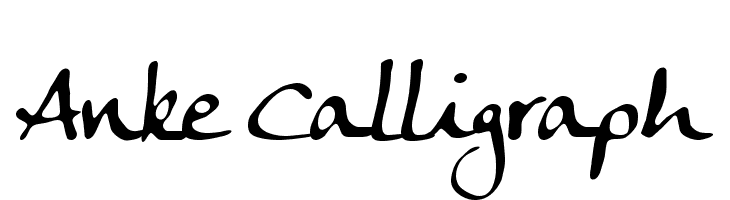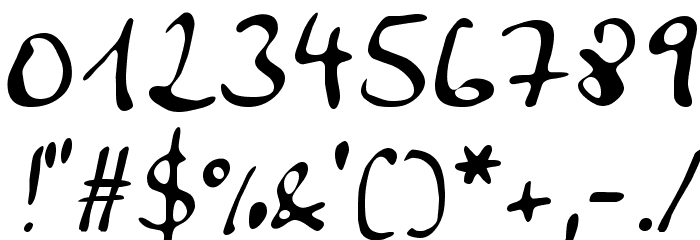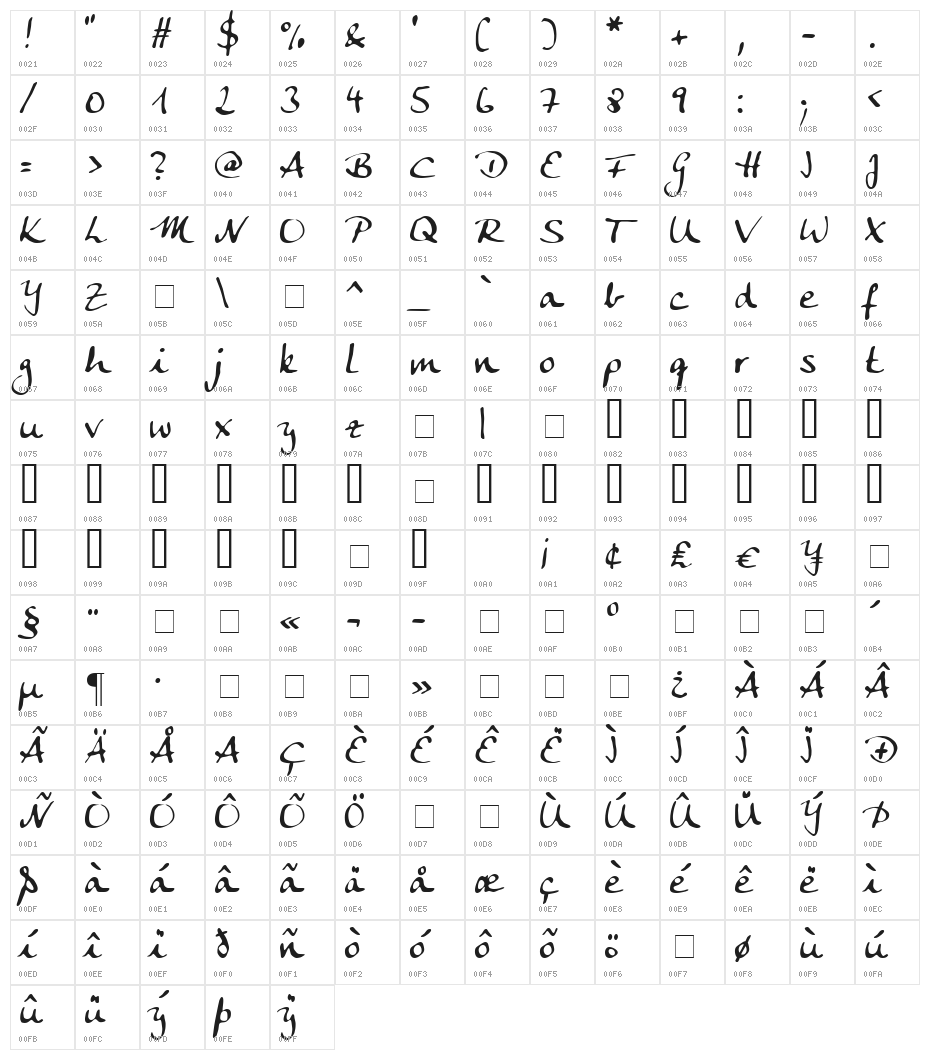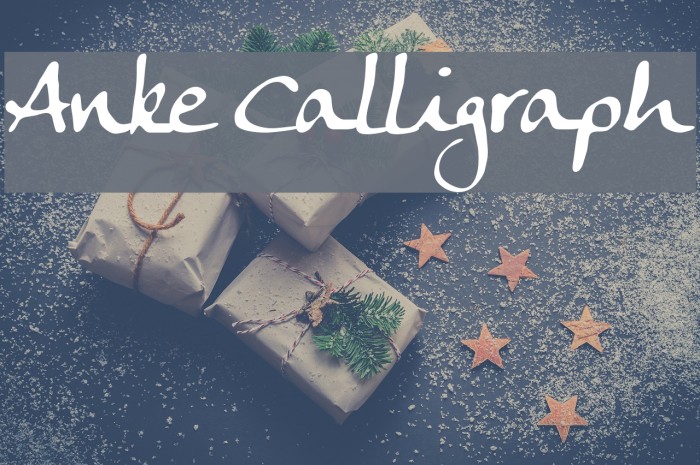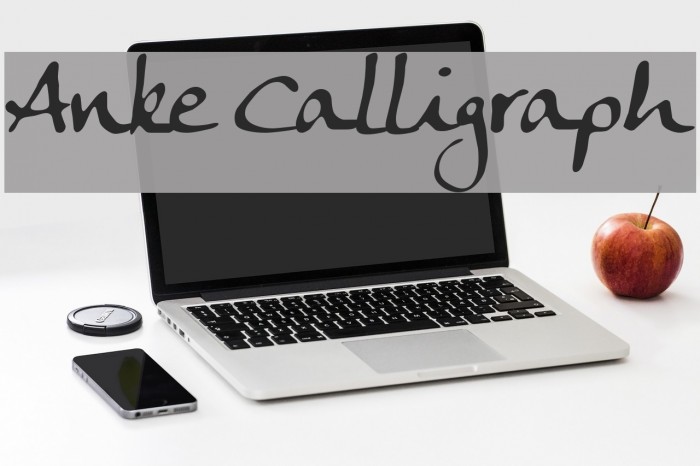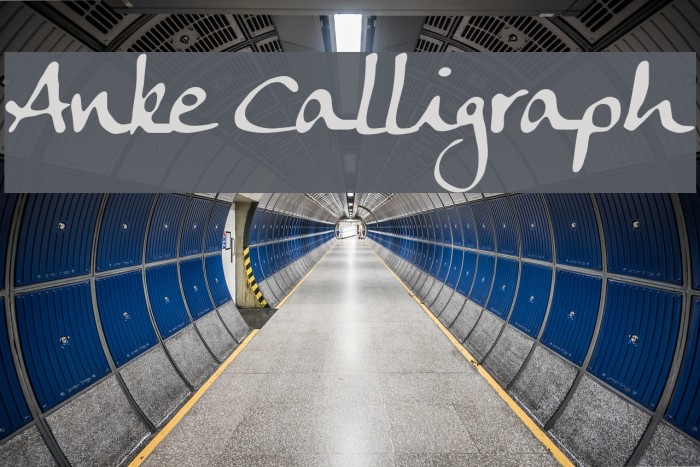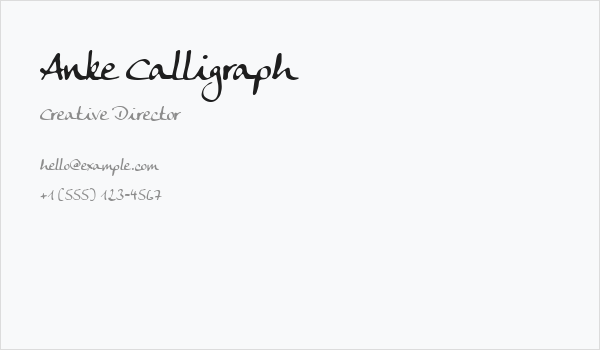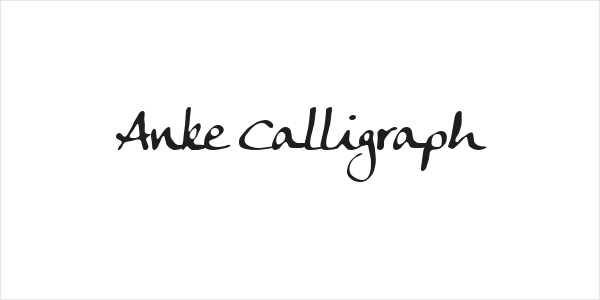
Anke Calligraph Font
Anke Calligraph Description
This font exudes a lively and expressive character, reminiscent of traditional calligraphy with a modern twist. The letters are fluid and dynamic, with a sense of motion that suggests a handwritten style. The uppercase letters are bold and slightly exaggerated, while the lowercase letters maintain a consistent flow, enhancing readability. The numerals are distinct and maintain the same energetic style, making them stand out. Special characters are creatively integrated, adding to the overall artistic feel of the font. This style is perfect for projects that require a personal and artistic touch.